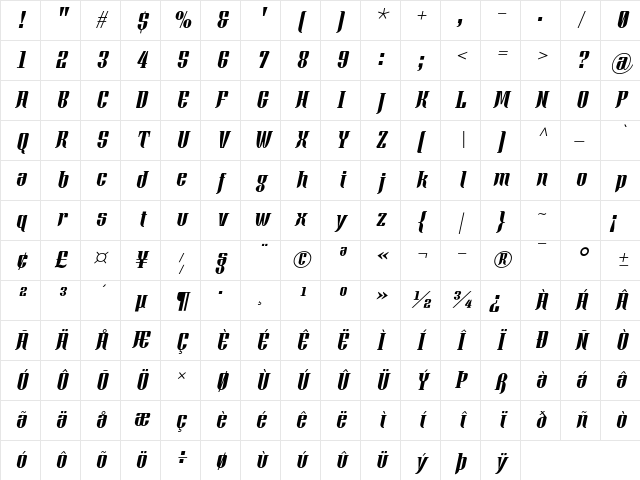
Xacose is a composed and adaptable typeface that performs quietly and consistently across a wide range of design contexts. The slanted form adds forward momentum and visual energy.
Pro Tip: Use Xacose for emphasis, pull quotes, and subheadings where its slanted energy can add rhythm to the layout.